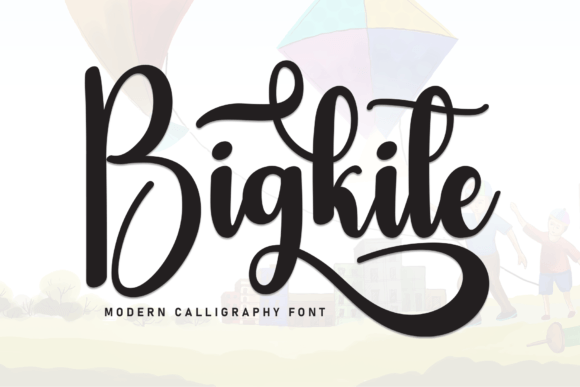
Dive into the realm of elegance and embrace the charm of Bigkite Font, a captivating script font family meticulously designed to elevate your creative expressions. With its playful and enchanting appearance, Bigkite Font is an ideal choice for adding a touch of whimsy and delight to your designs.
Unleash your creativity and let Bigkite Font guide you on an extraordinary journey. Its graceful curves and fluid lines create a visual symphony that will captivate your audience. Dive into the world of wedding invitations, greeting cards, branding projects, and social media posts, knowing that Bigkite Font will add a unique touch of magic to each endeavor.
Immerse yourself in the beauty of Bigkite Font and discover a realm of endless possibilities. This font is a treasure trove of elegance, waiting to be unearthed and showcased in your designs. Its versatility knows no bounds, making it the perfect companion for any project that demands a touch of sophistication and charm.
With Bigkite Font, you'll embark on a delightful adventure, crafting designs that exude warmth, personality, and everlasting charm. Let your imagination soar as you explore the endless possibilities that this font presents, transforming your creative visions into awe-inspiring realities.